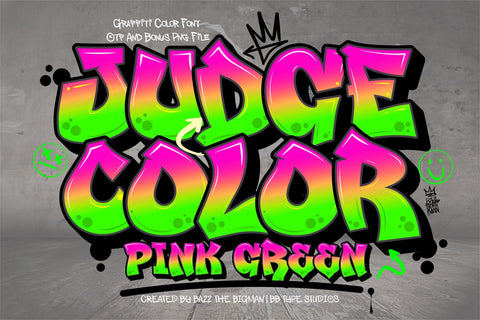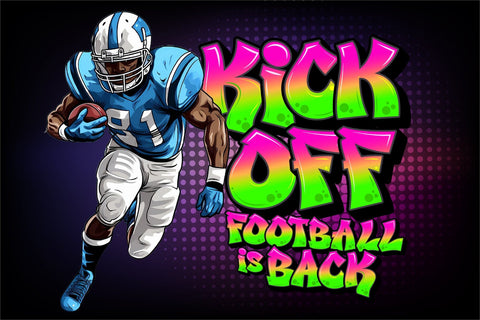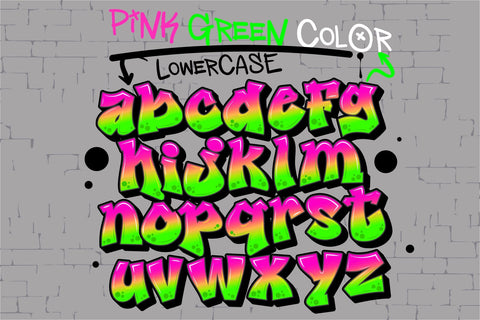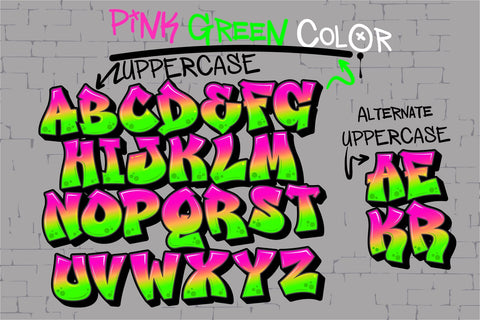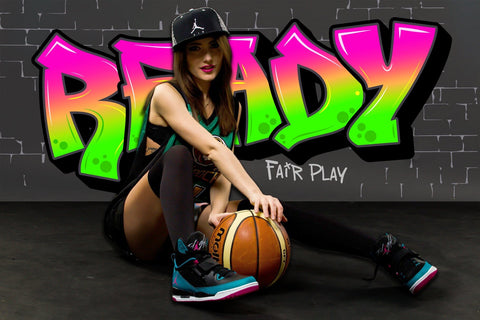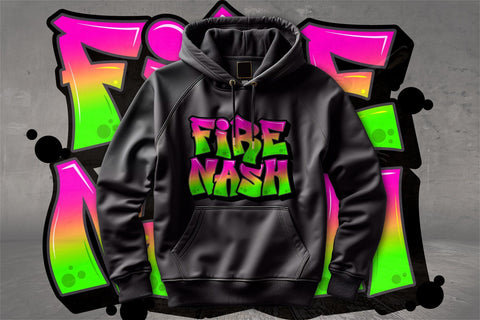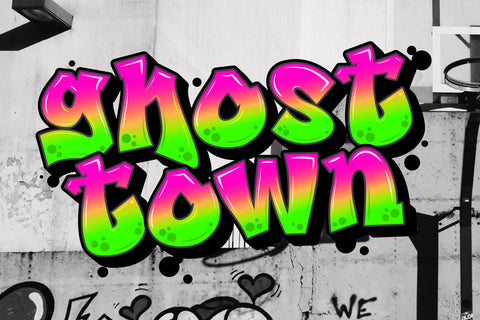
Judge Color Font-Pink Green
Introducing Judge Color Pink Green—a vibrant graffiti-inspired color font, bursting with a bold, eye-catching pink and green gradient encased in a solid black outline. Unleash your creativity in urban aesthetics, sports visuals, YouTube thumbnails, street-inspired fashion labels, and anything that demands a rebellious streak.
Embedded with the true spirit of authentic graffiti, this font exudes powerful strokes juxtaposed with contrasting colors, capturing the raw vibe of street art. Equipped with a comprehensive character set, this font includes uppercase, lowercase, alternate versions, numbers, and all the punctuation you could require.
Key Features:
– Enjoy the advantage of the OpenType-SVG Color Font feature. Simply type and watch your text come to life in vivid hues instantly.
– Bask in the essence of genuine graffiti style. Robust strokes coupled with striking, contrasting colors capture the tangible vitality of street art.
– Welcome to the complete package. Judge Color Pink Green font comes with a full set of uppercase, lowercase, numerals, and basic punctuation.
– Revel in the flexibility of design offered by alternate uppercase characters.